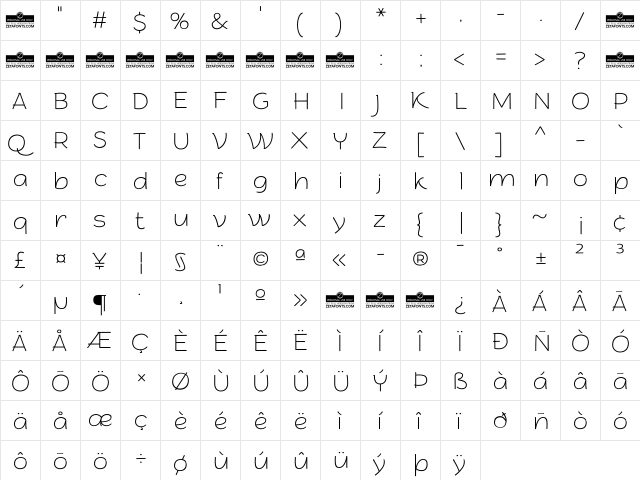
Arturo Trial Thin
| Foundry | Zetafonts |
| Designer | Francesco Canovaro |
Design Context for Arturo Trial Typeface
Arturo Trial is a composed and adaptable typeface that performs quietly and consistently across a wide range of design contexts. Its slender proportions lend an understated elegance to any composition.